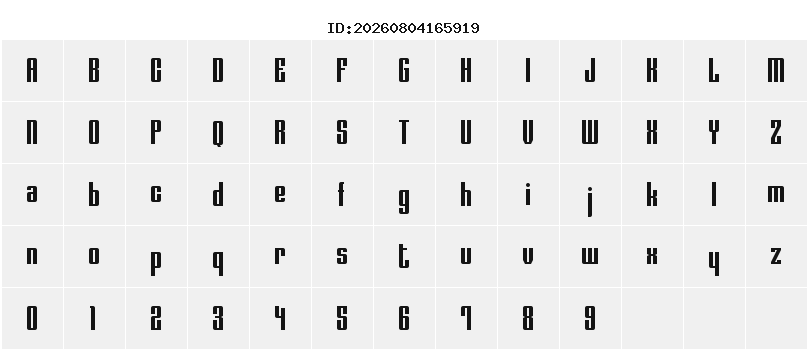
• Designer: Frederic Rich
• Description: “Night Train 382” was built with FontStruct
About Night Train 382.ttf
Night Train 382.ttf is a modern, elegant sans-serif font designed for ultimate readability and visual harmony. Perfect for branding, headlines, web design, and print materials.